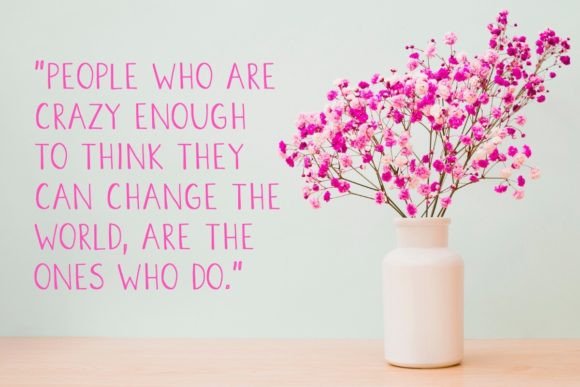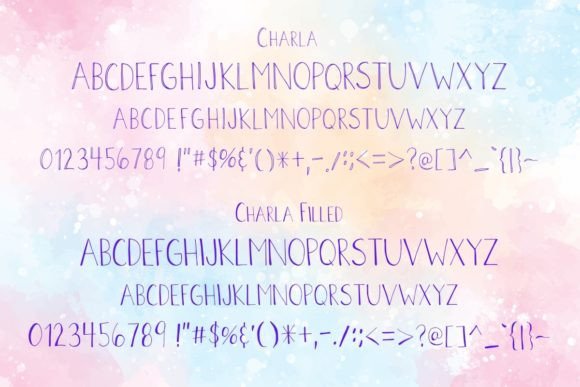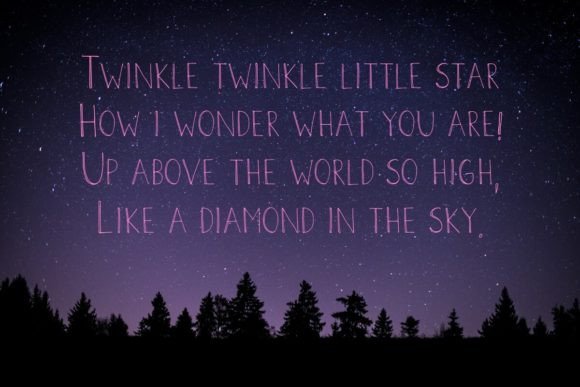
Meet Charla and Charla Filled: The Whimsical Font Duo for Designers and Crafters
Are you tired of using the same old fonts in your designs? Do you want to add a touch of whimsy and charm to your scrapbooking, crafting, or art projects? Look no further than Charla and Charla Filled, the sweet and playful font duo that’s sure to sprinkle some magic into your creations!
Introducing Charla: The Perfect Font for a Hand-Drawn Look
Charla is a tall, thin, and skinny all-caps font that’s perfect for adding a touch of elegance and sophistication to your designs. Its delicate lines and whimsical feel make it ideal for creating cheerful invitations, fun labels, and unique art pieces that stand out from the crowd.
Whether you’re a designer, crafter, or DIY enthusiast, Charla is the perfect font for anyone looking to add a personal touch to their work. Its hand-drawn look and feel make it perfect for scrapbooking, crafting, and other paper crafts, as well as digital designs like social media graphics and blog posts.
Meet Charla Filled: The Perfect Companion to Charla
Charla Filled is the perfect companion to Charla, offering a filled version of the font that’s perfect for creating bold and eye-catching designs. With its smooth and flowing lines, Charla Filled is ideal for creating titles, headings, and other design elements that need to make a statement.
Whether you’re creating a colorful poster, a whimsical invitation, or a unique art piece, Charla Filled is the perfect font for adding a pop of color and personality to your design. And with its seamless integration with Charla, you can mix and match the two fonts to create a wide range of design possibilities.
What Makes Charla and Charla Filled So Special?
So what makes Charla and Charla Filled so special? Here are just a few reasons why designers and crafters are falling in love with this font duo:
- Unique and Whimsical Style: Charla and Charla Filled offer a unique and whimsical style that’s perfect for adding a touch of personality to your designs.
- Hand-Drawn Look and Feel: The hand-drawn look and feel of Charla and Charla Filled make them perfect for scrapbooking, crafting, and other paper crafts.
- Versatile and Flexible: Charla and Charla Filled are versatile and flexible fonts that can be used for a wide range of design projects, from digital designs to print materials.
- Easily Customizable: With Charla and Charla Filled, you can easily customize your designs by mixing and matching the two fonts, adjusting the size and color, and more.
How to Use Charla and Charla Filled in Your Designs
Using Charla and Charla Filled in your designs is easy! Here are a few tips to get you started:
- Pair Charla and Charla Filled: Pair Charla and Charla Filled to create a unique and eye-catching design that’s sure to stand out.
- Use Charla for Headings and Titles: Use Charla for headings and titles to add a touch of elegance and sophistication to your design.
- Use Charla Filled for Body Text: Use Charla Filled for body text to add a pop of color and personality to your design.
- Experiment with Colors and Patterns: Experiment with different colors and patterns to add depth and interest to your design.
In conclusion, Charla and Charla Filled are the perfect font duo for designers and crafters looking to add a touch of whimsy and charm to their designs. With their unique and whimsical style, hand-drawn look and feel, and versatility and flexibility, Charla and Charla Filled are sure to become your go-to fonts for a wide range of design projects.